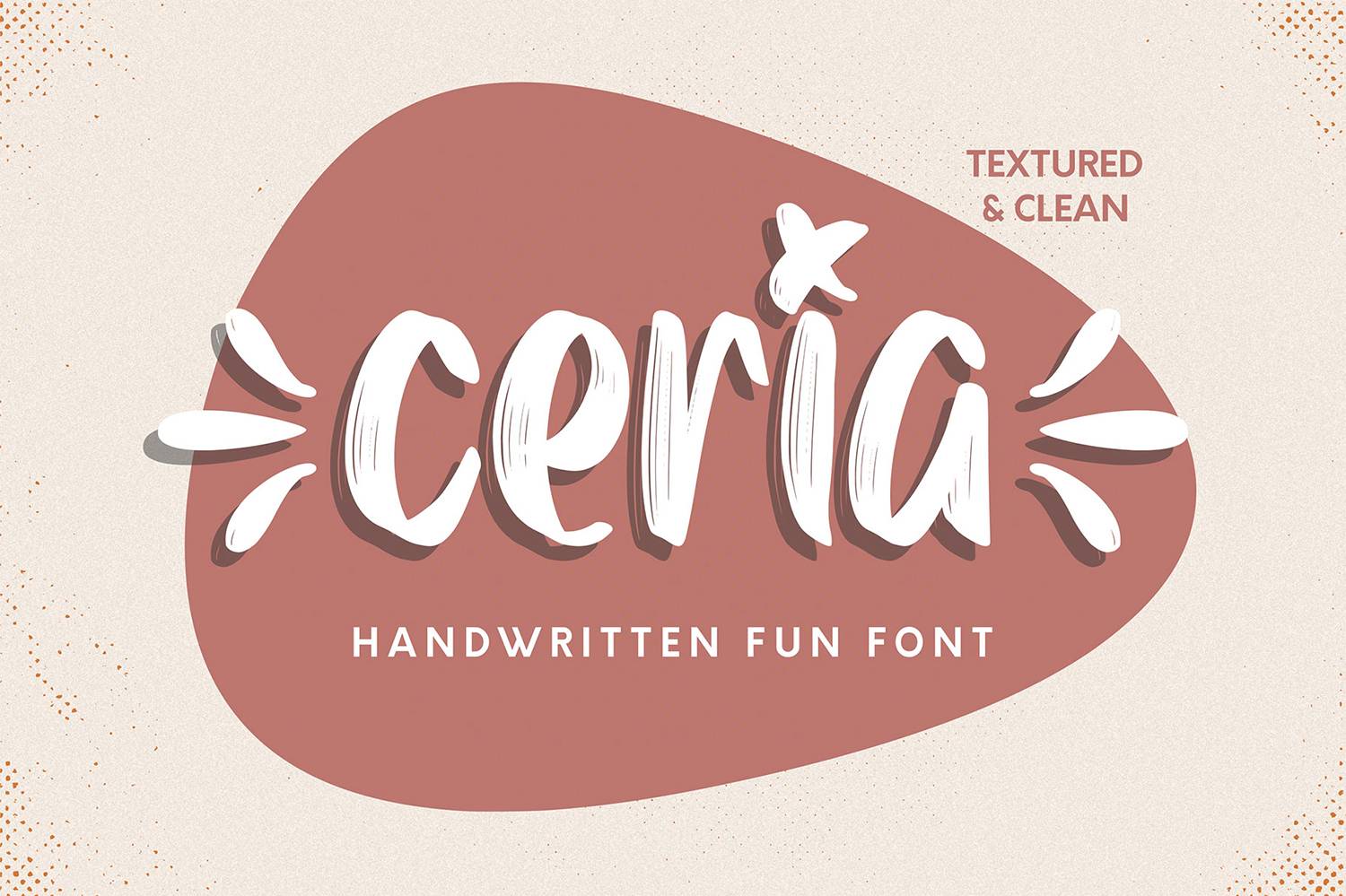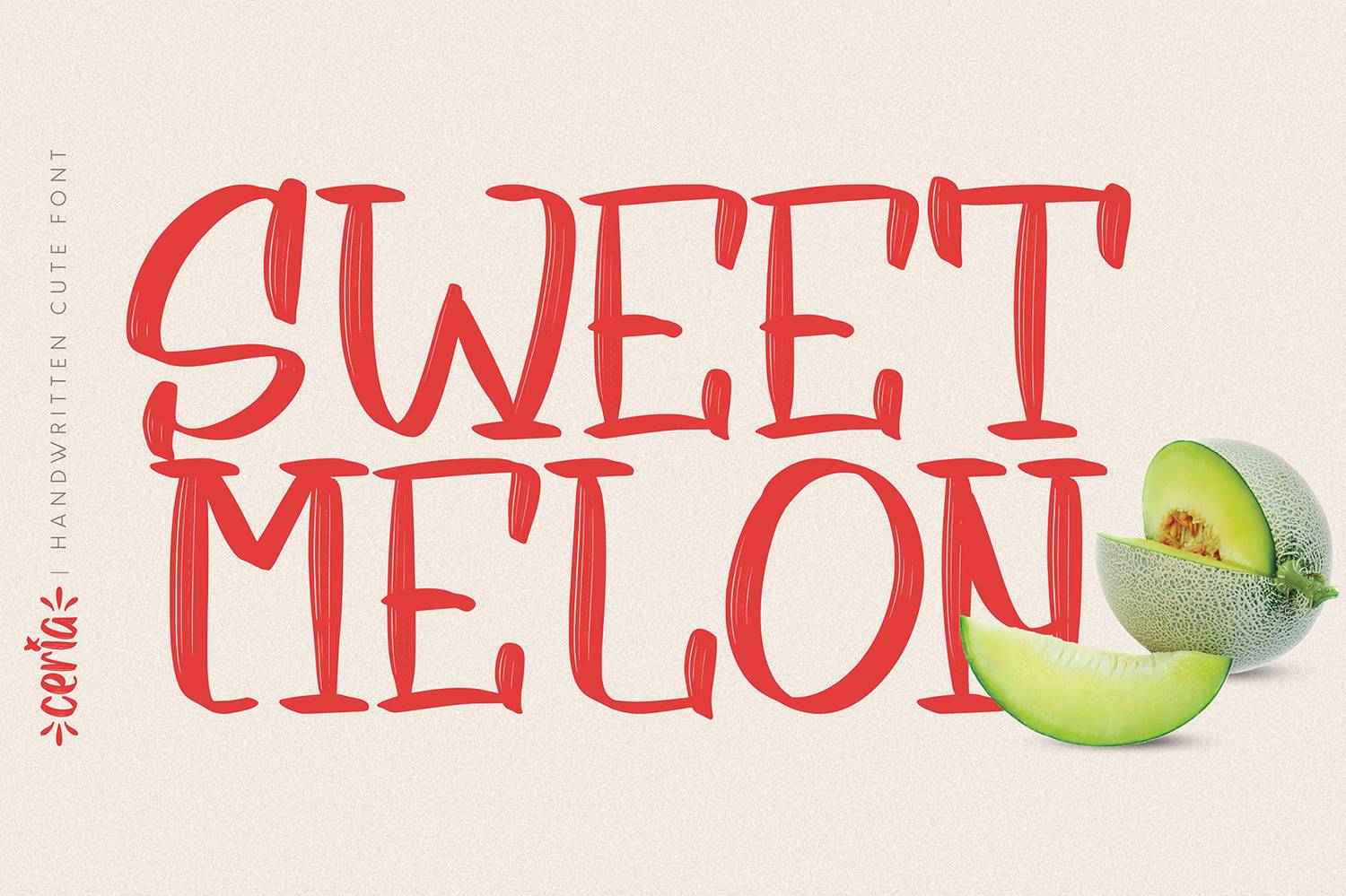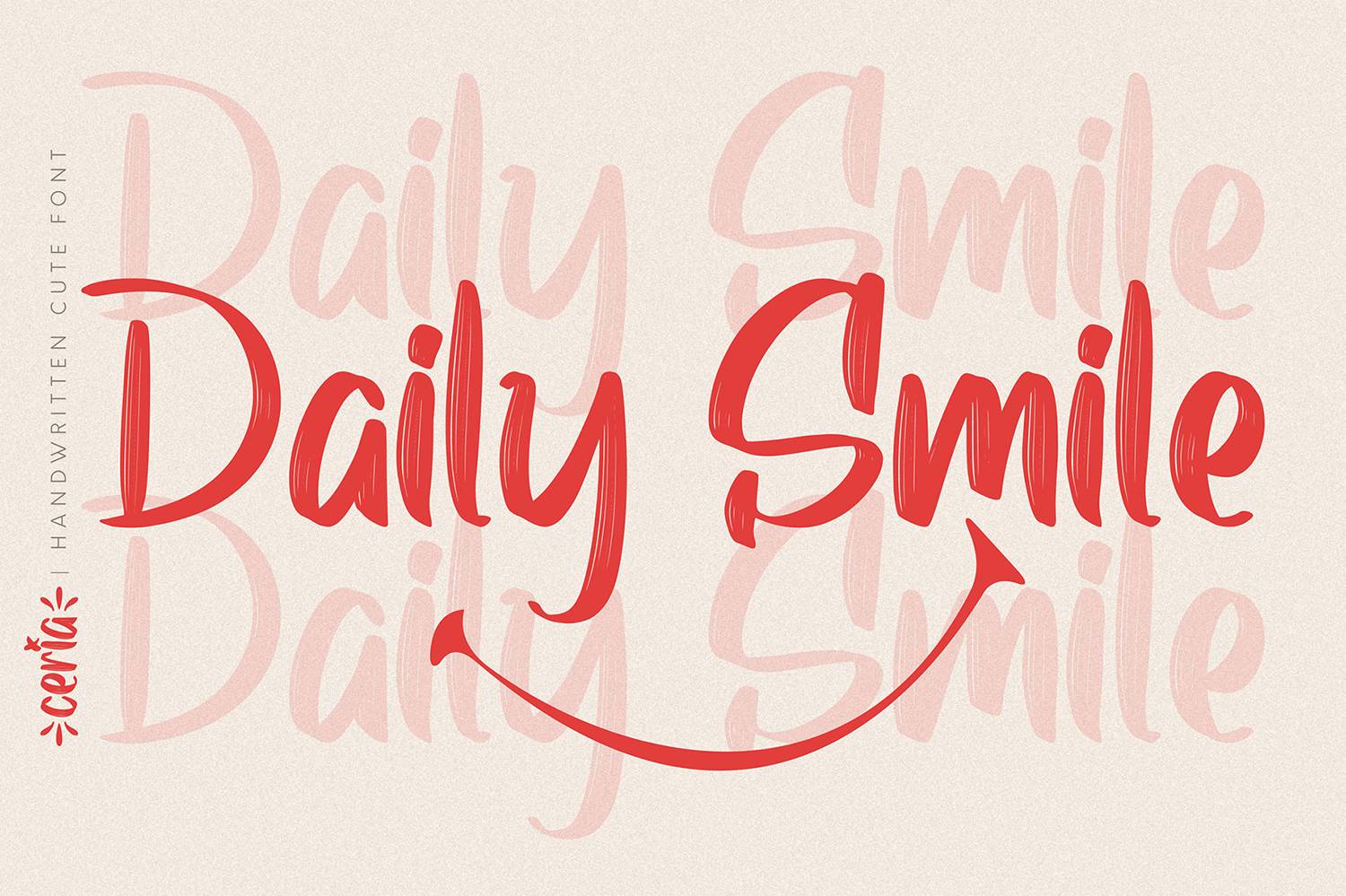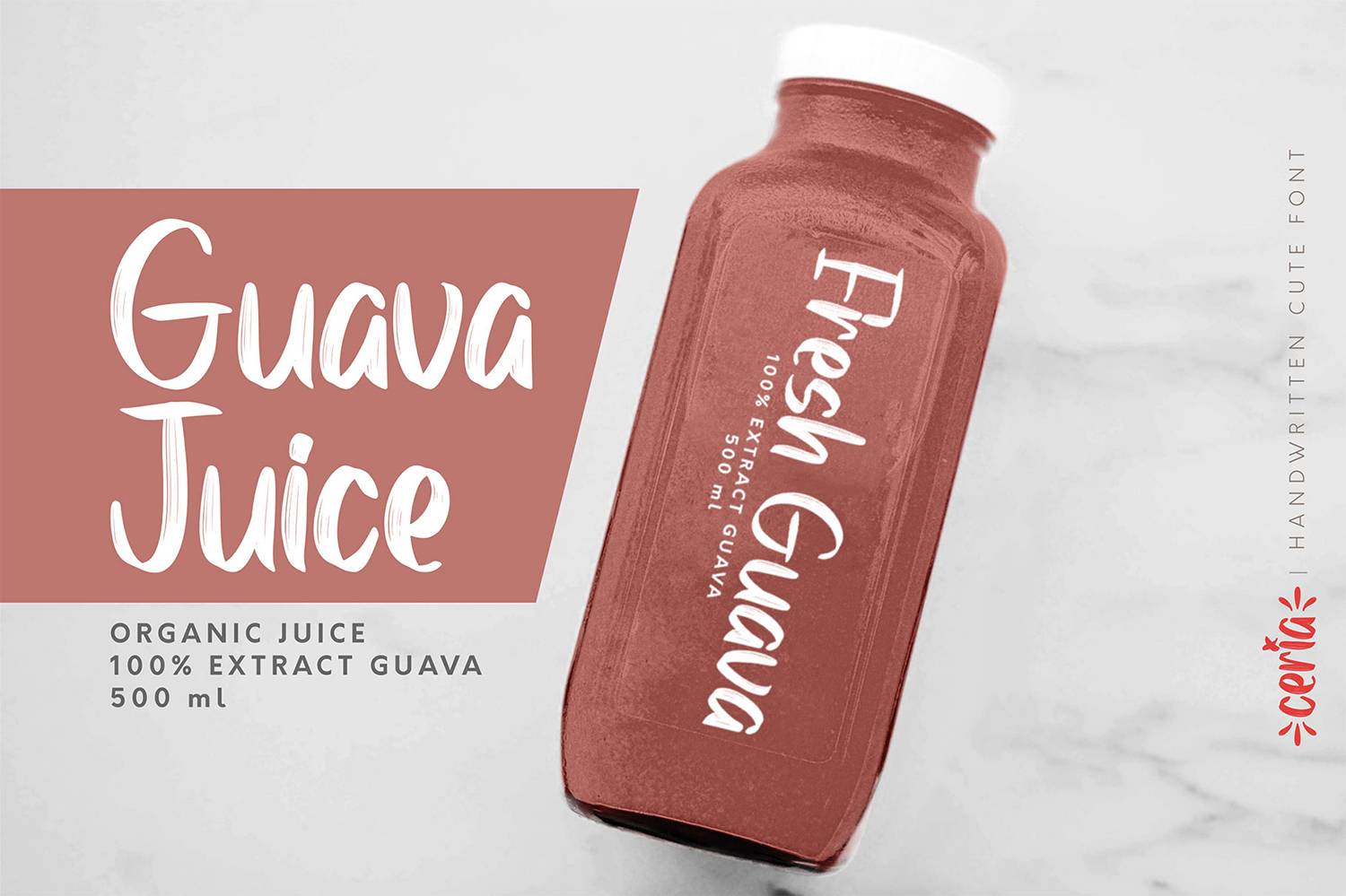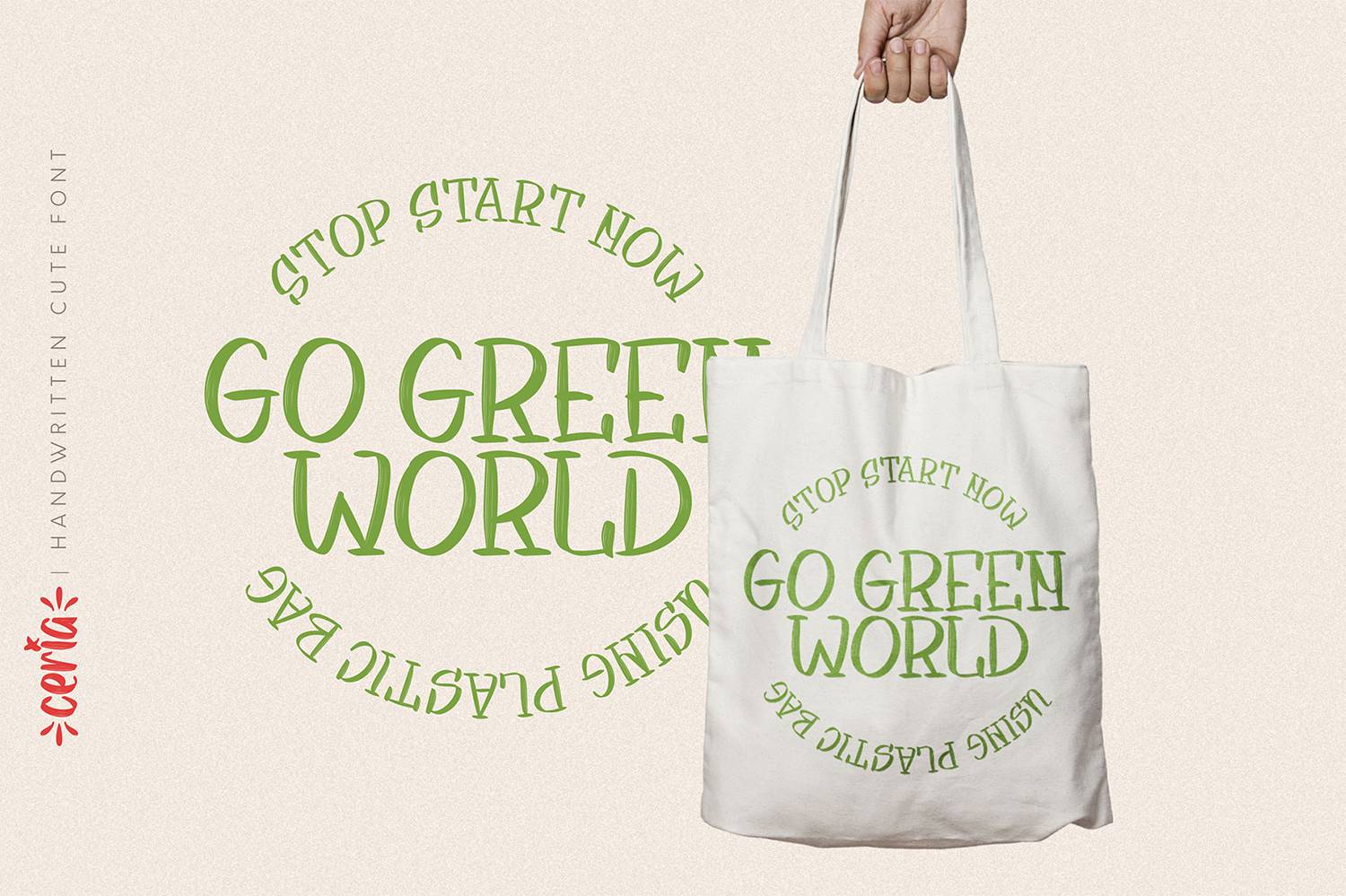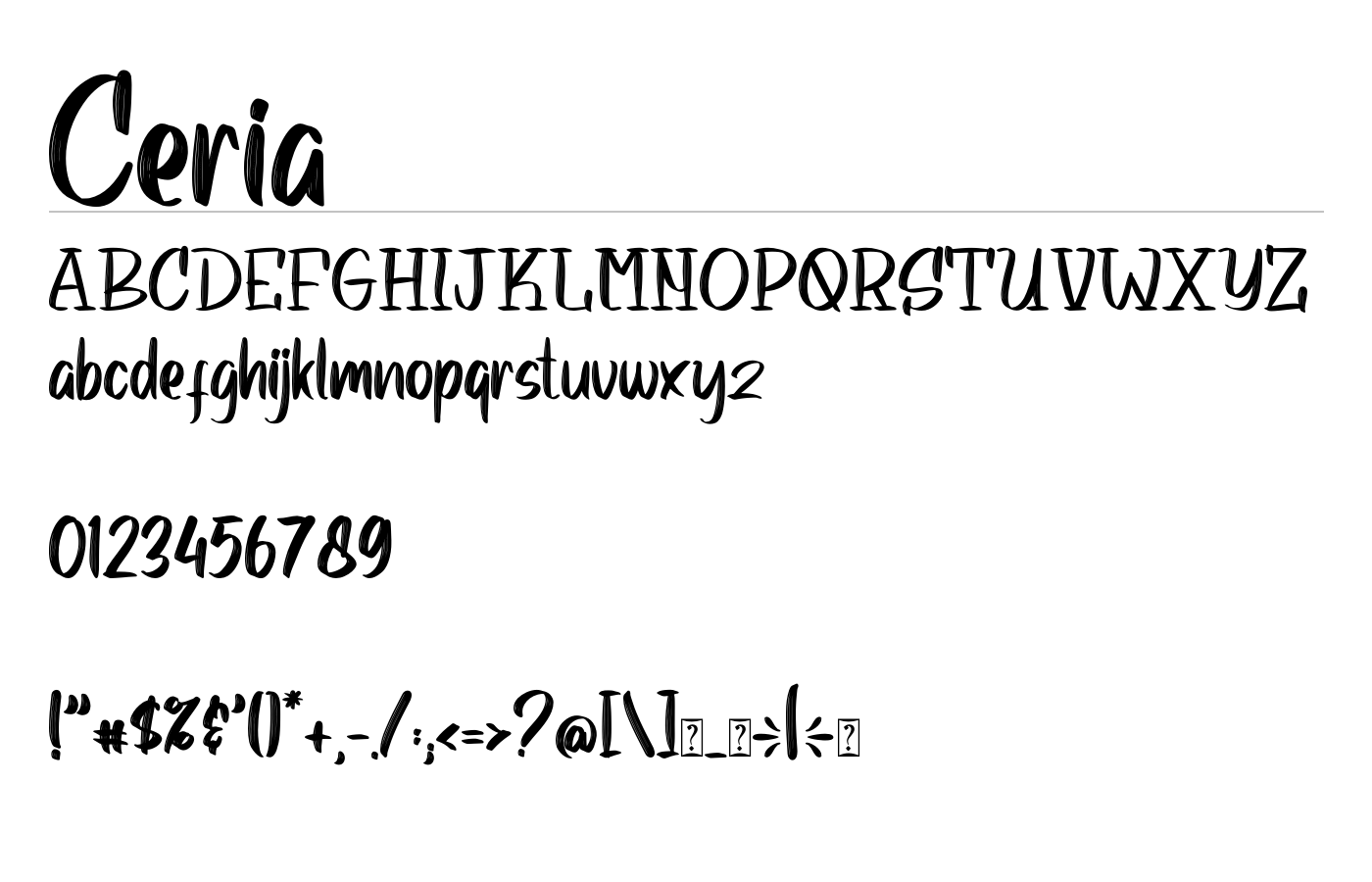
Ceria is a lively and playful hand-drawn sans serif font with a casual, brushstroke texture that gives it a friendly, approachable personality. Its tall x-height and dynamic letterforms with slight variations make it perfect for creative projects like branding, posters, and packaging that need an energetic, informal touch. This font works well in headlines and display uses where a warm, handmade feel is desired.
Ceria Font
About Ceria Font